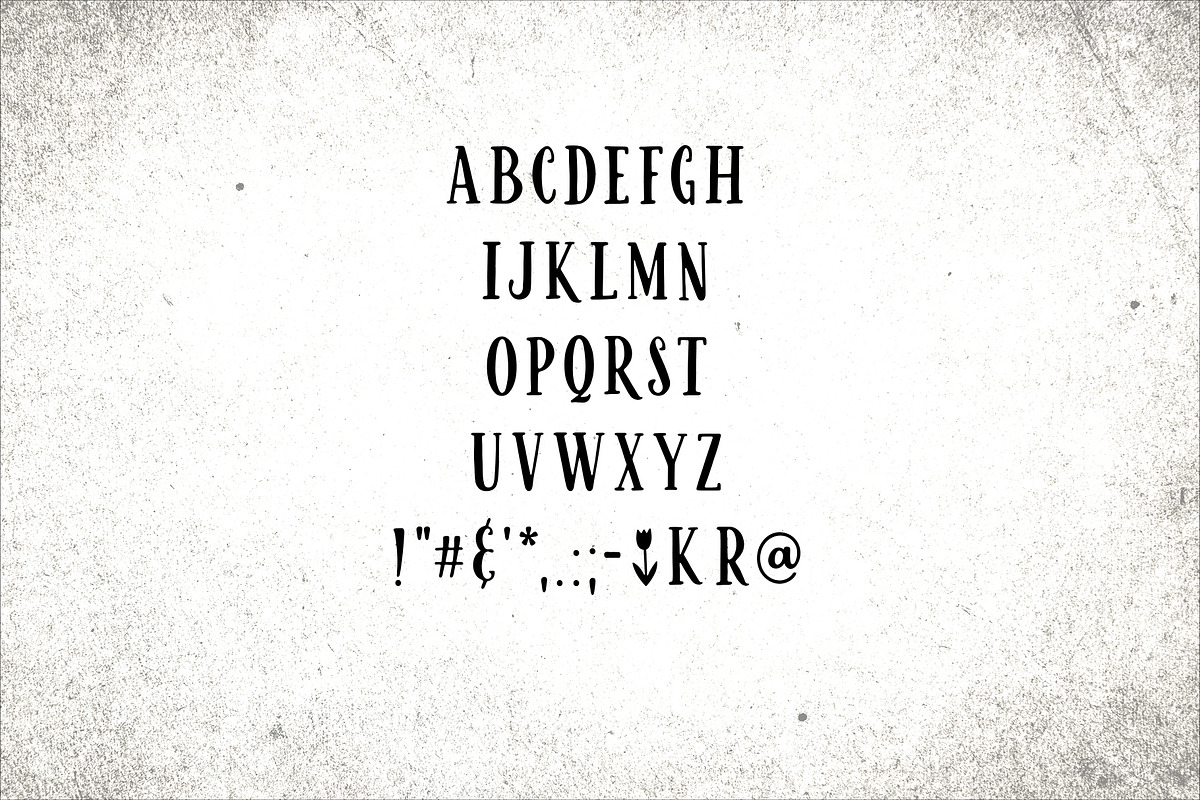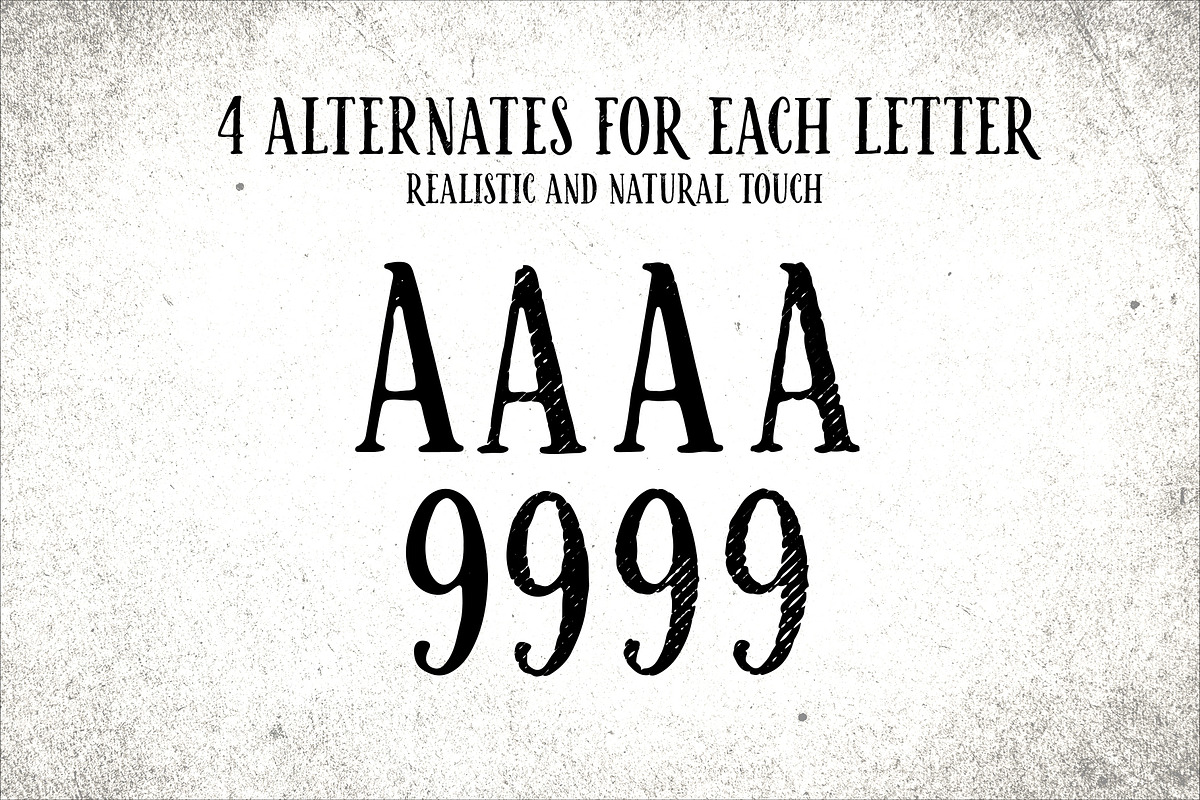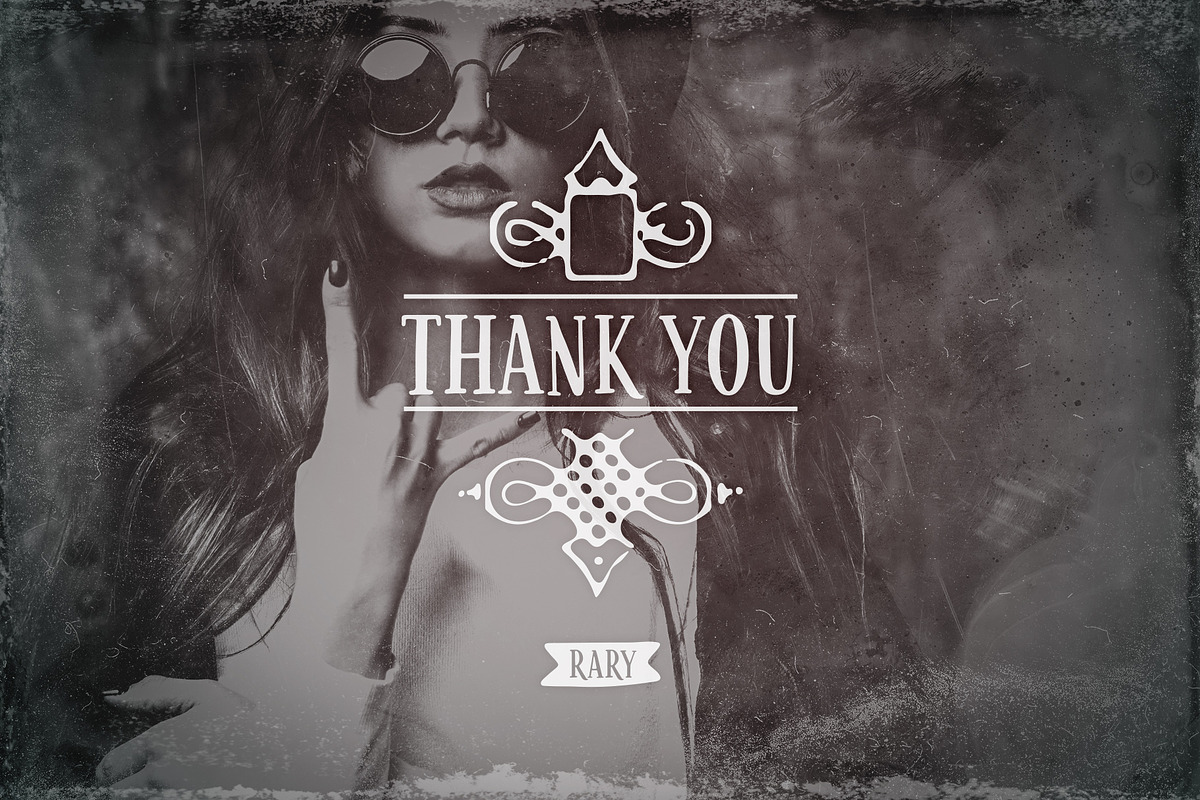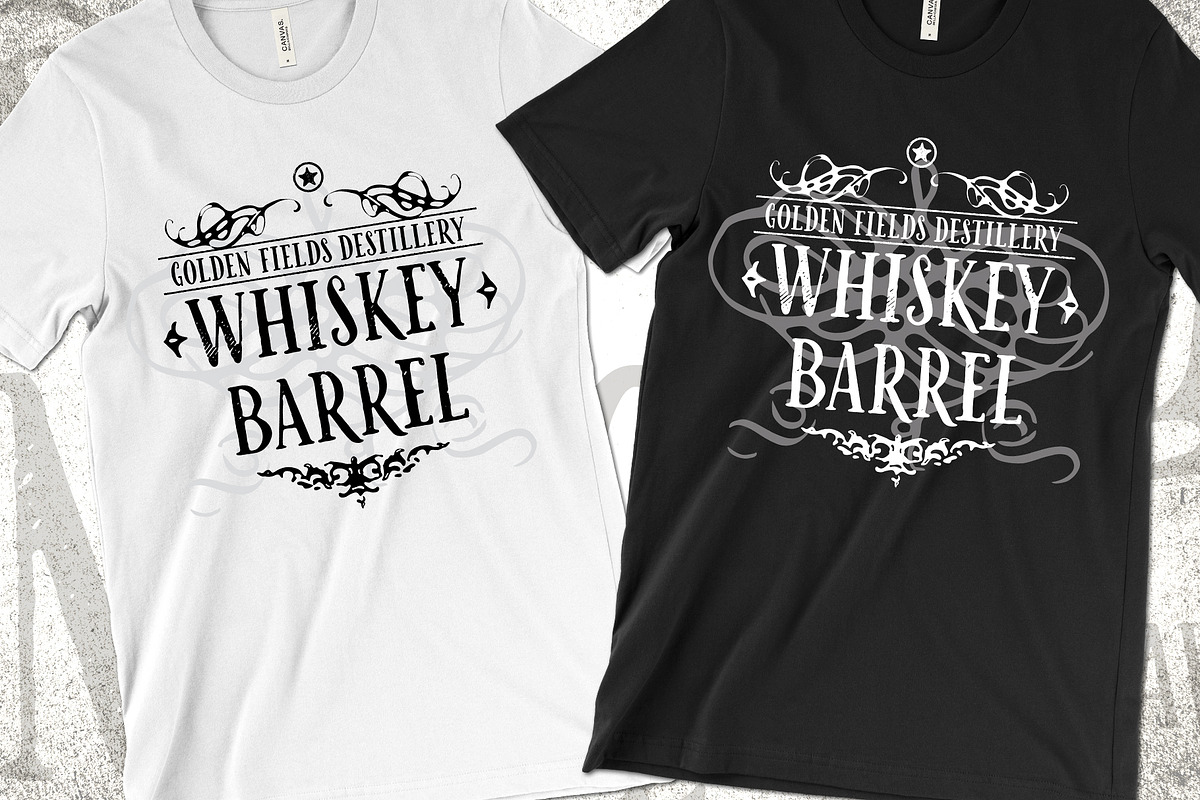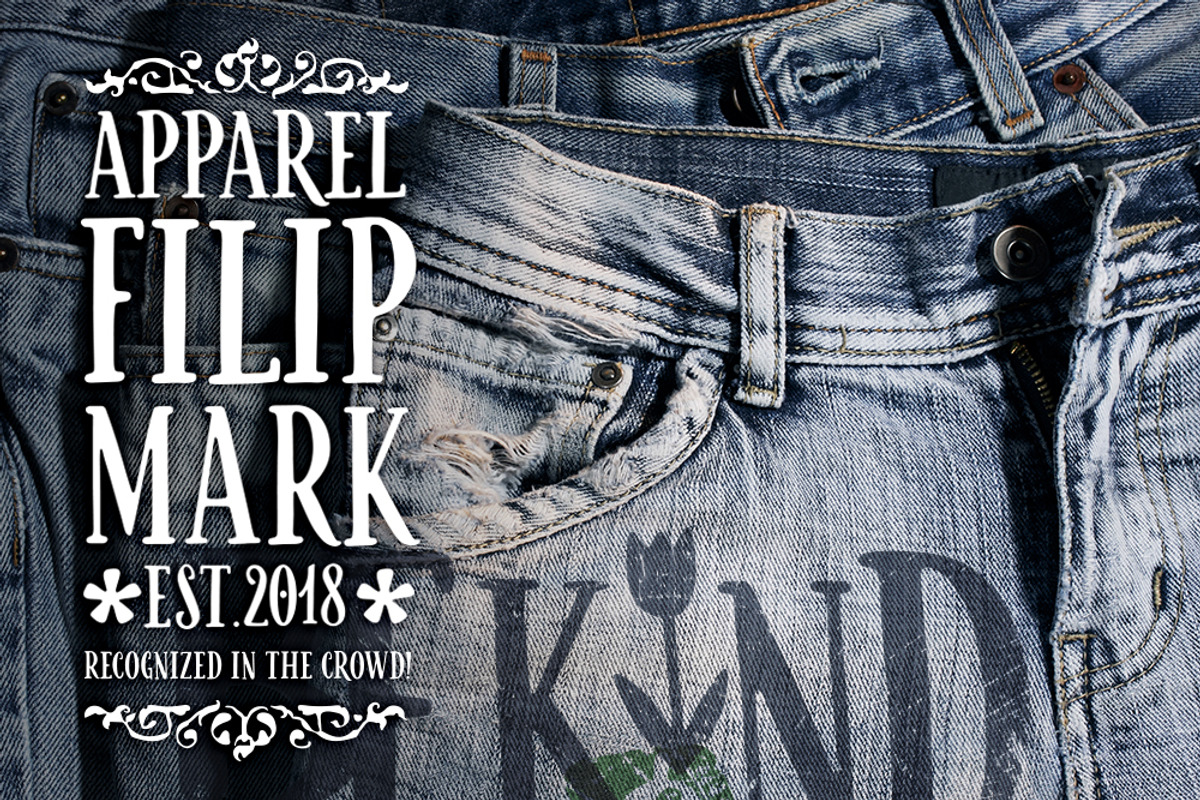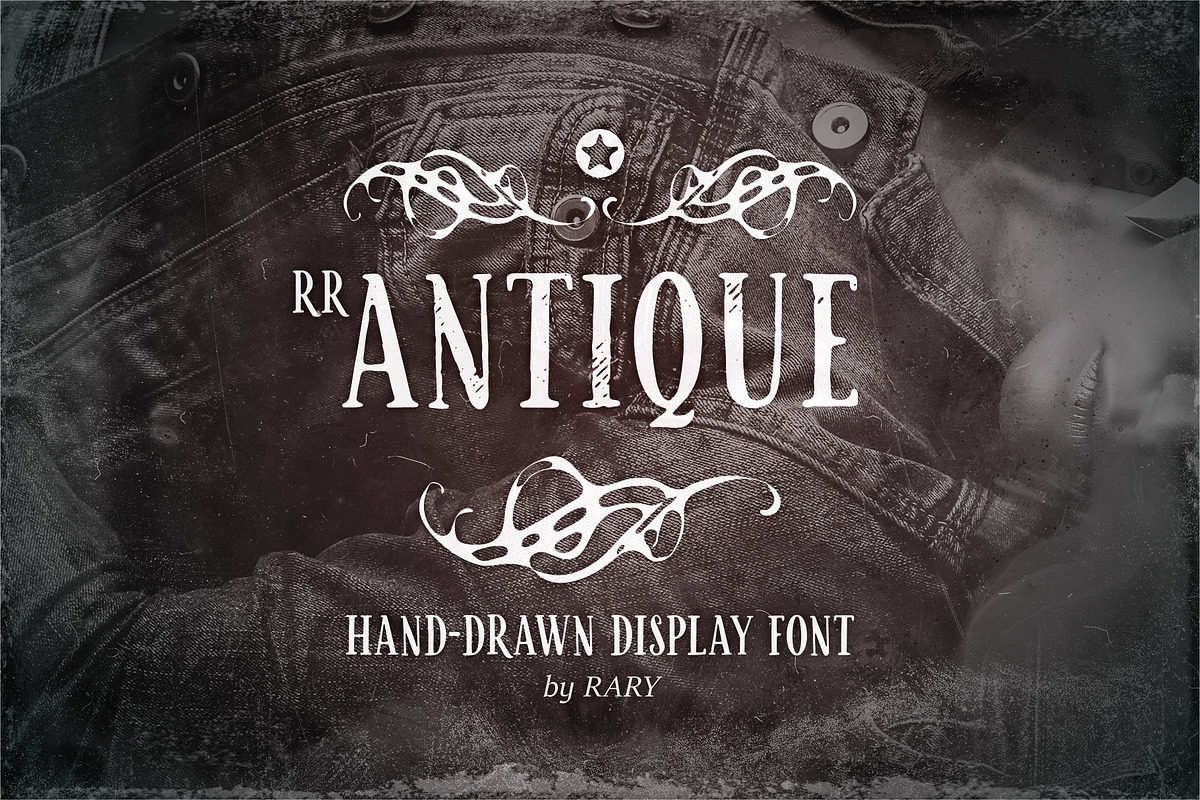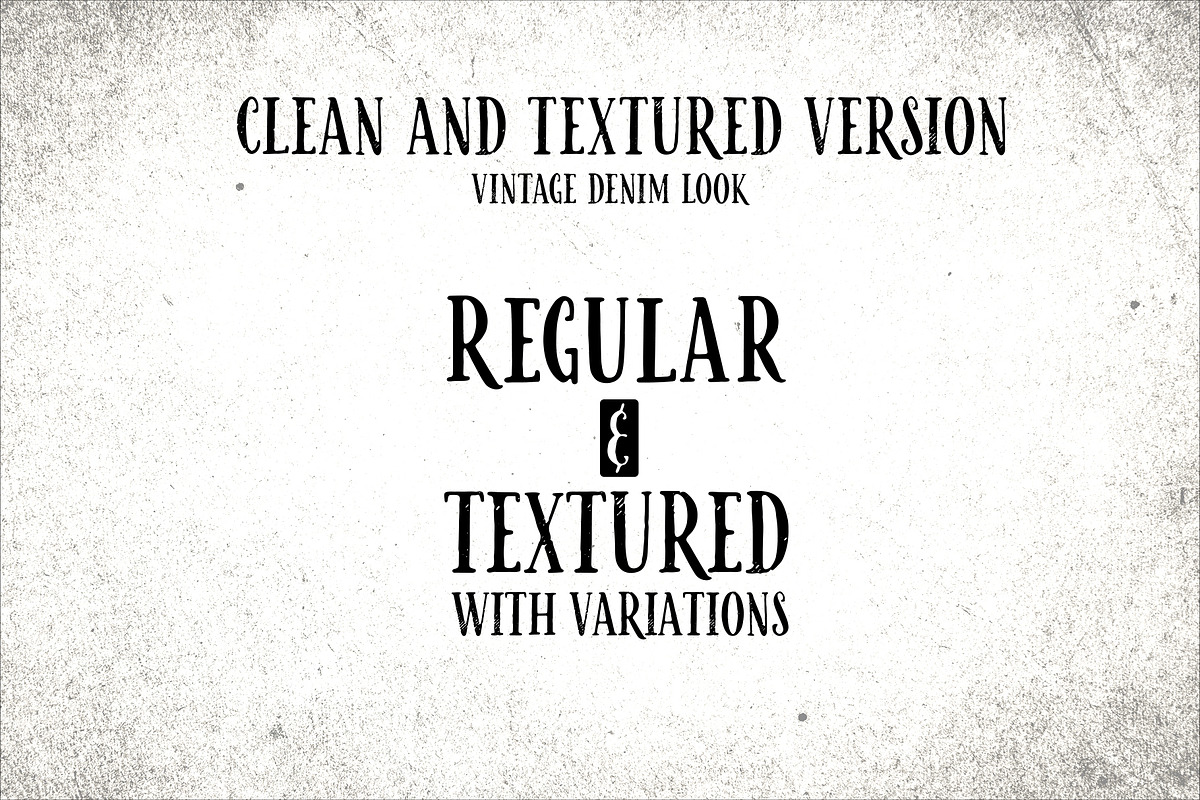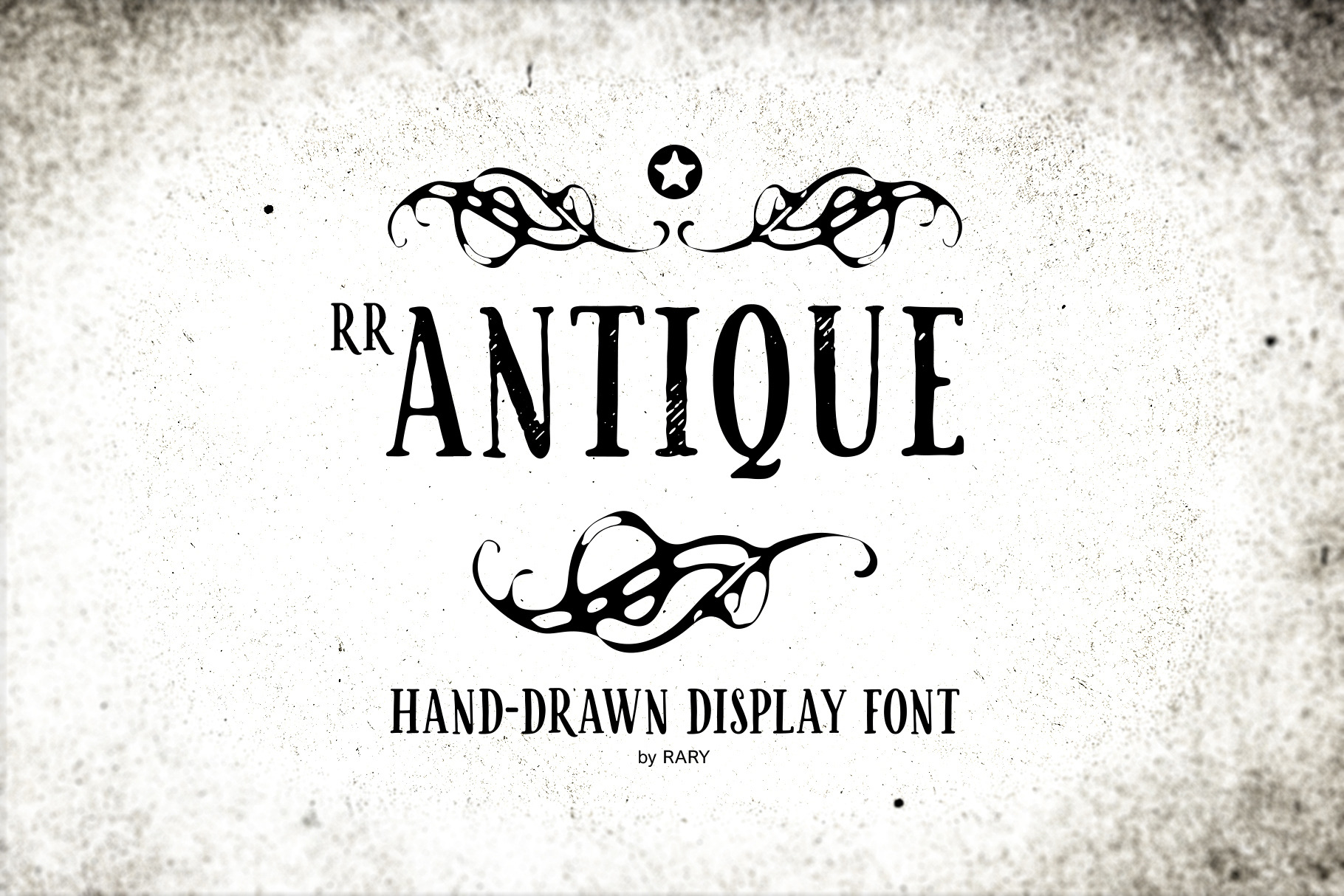
RR Antique / Vintage branding font
RR Antique is a vintage hand-drawn condensed display font. Designed for branding, stamps, tags or logos it comes in a regular and denim textured version with rough edges. Extra design elements for logos and t-shirt design template are included in the pack. Textured version has four OpenType alternatives for each letter and number. Letters R and K have special options. I have created this font for the retro denim fashion newsletter. It is all caps font with several necessary latin glyphs.